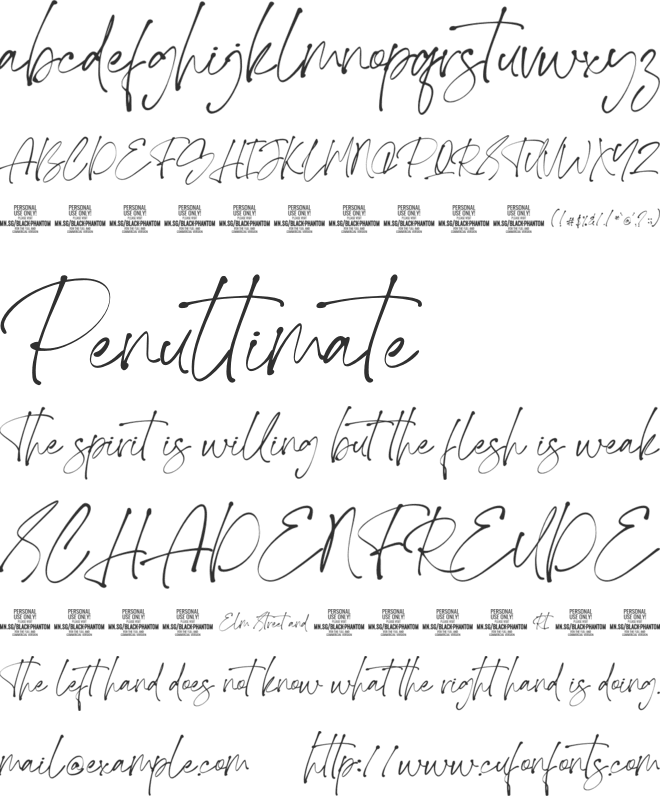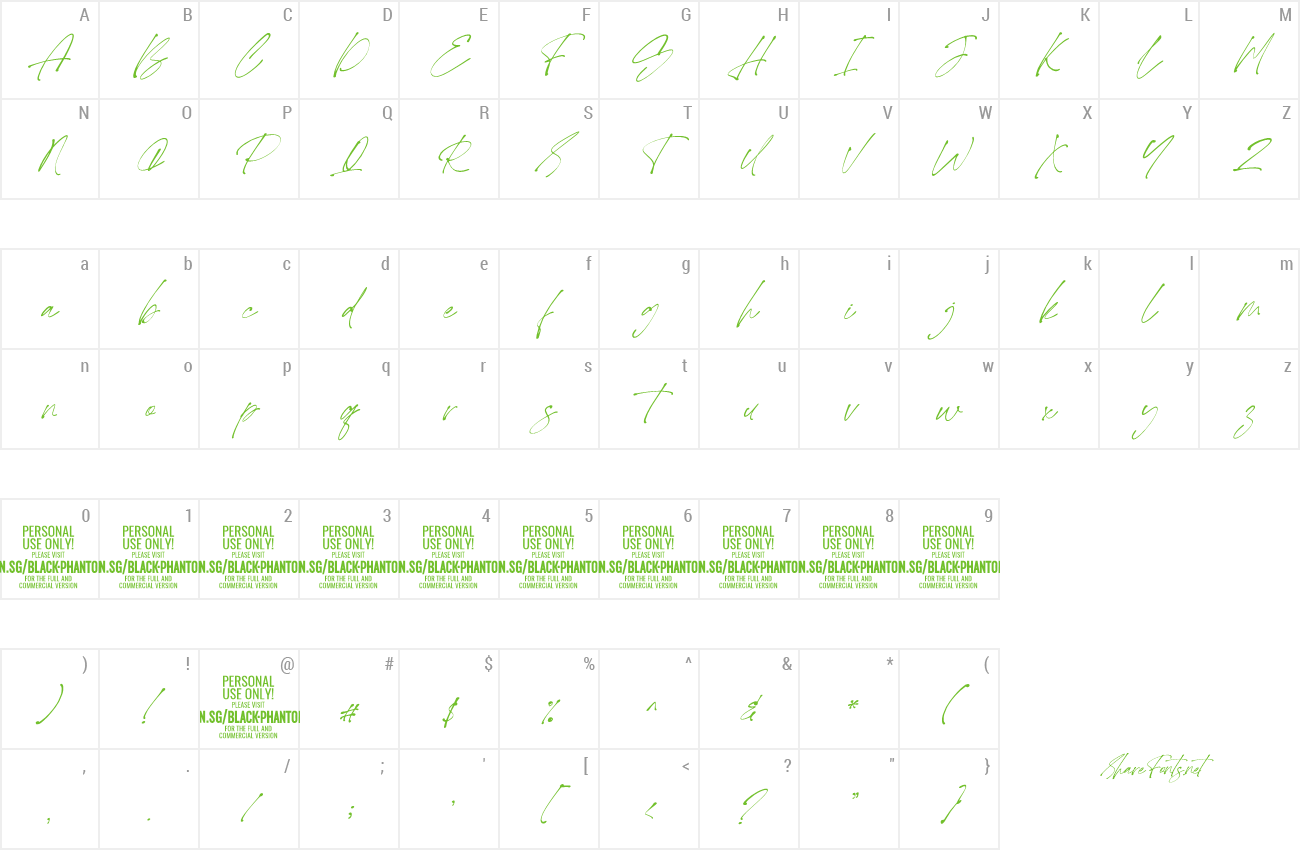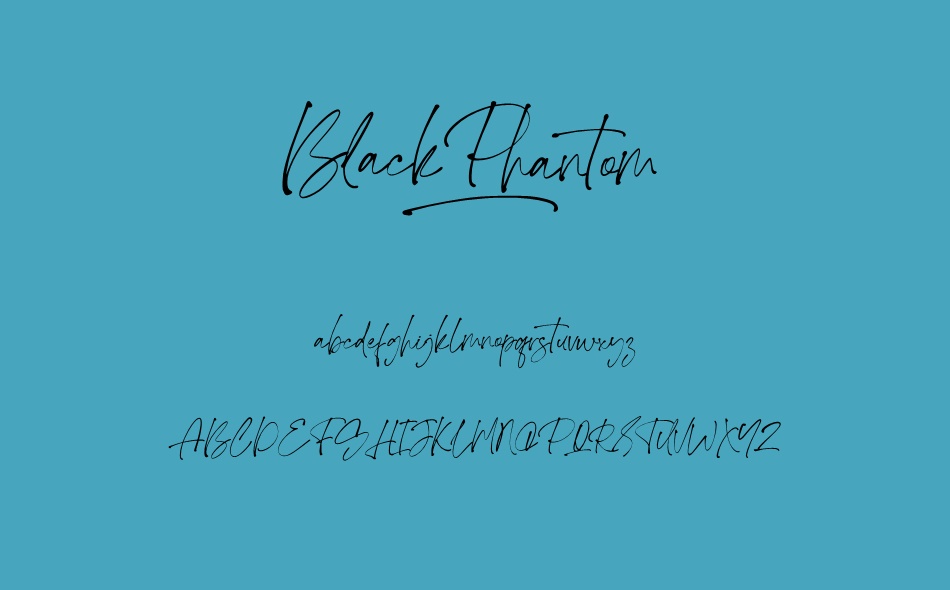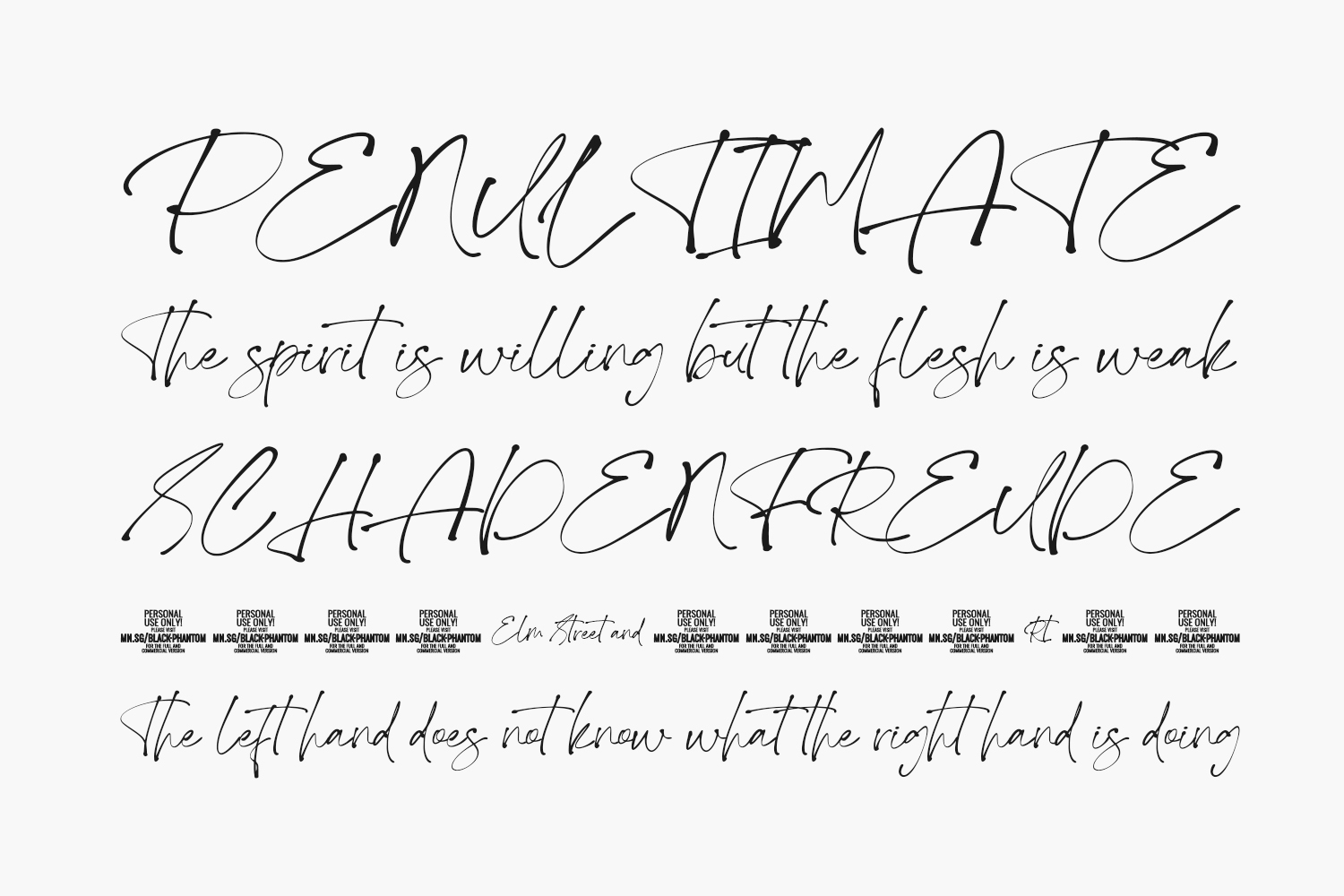
Black Phantom Font
Black Phantom Font - 51,627 downloads (1 yesterday) free for personal. Use it to add an authentic. Web it’s a cool and playful handwritten font created by aminmario with a stunning vibe. Web black phantom à € by mans greback.
51,627 downloads (1 yesterday) free for personal. Web black phantom à € by mans greback. Web it’s a cool and playful handwritten font created by aminmario with a stunning vibe. Use it to add an authentic.
Web it’s a cool and playful handwritten font created by aminmario with a stunning vibe. 51,627 downloads (1 yesterday) free for personal. Web black phantom à € by mans greback. Use it to add an authentic.
Web black phantom à € by mans greback. Web it’s a cool and playful handwritten font created by aminmario with a stunning vibe. Use it to add an authentic. 51,627 downloads (1 yesterday) free for personal.
51,627 downloads (1 yesterday) free for personal. Web black phantom à € by mans greback. Use it to add an authentic. Web it’s a cool and playful handwritten font created by aminmario with a stunning vibe.
Use it to add an authentic. Web it’s a cool and playful handwritten font created by aminmario with a stunning vibe. 51,627 downloads (1 yesterday) free for personal. Web black phantom à € by mans greback.
51,627 downloads (1 yesterday) free for personal. Web it’s a cool and playful handwritten font created by aminmario with a stunning vibe. Use it to add an authentic. Web black phantom à € by mans greback.
Black Phantom Font
Web black phantom à € by mans greback. Web it’s a cool and playful handwritten font created by aminmario with a stunning vibe. Use it to add an authentic. 51,627 downloads (1 yesterday) free for personal.
Web it’s a cool and playful handwritten font created by aminmario with a stunning vibe. 51,627 downloads (1 yesterday) free for personal. Use it to add an authentic. Web black phantom à € by mans greback.
Black Phantom Handwritten Font
Use it to add an authentic. Web black phantom à € by mans greback. Web it’s a cool and playful handwritten font created by aminmario with a stunning vibe. 51,627 downloads (1 yesterday) free for personal.
Web it’s a cool and playful handwritten font created by aminmario with a stunning vibe. Web black phantom à € by mans greback. Use it to add an authentic. 51,627 downloads (1 yesterday) free for personal.
Web it’s a cool and playful handwritten font created by aminmario with a stunning vibe. Use it to add an authentic. Web black phantom à € by mans greback. 51,627 downloads (1 yesterday) free for personal.
Web Black Phantom À € By Mans Greback.
51,627 downloads (1 yesterday) free for personal. Use it to add an authentic. Web it’s a cool and playful handwritten font created by aminmario with a stunning vibe.